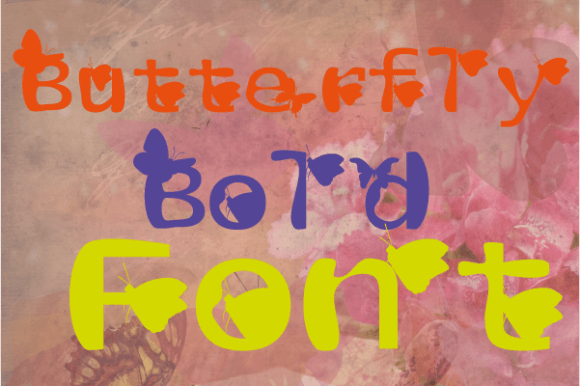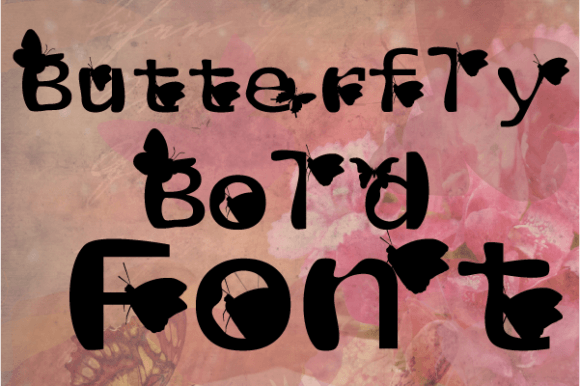
Unleash Your Creativity with Butterfly Bold Font
Have you ever stared at a blank page, feeling like your creativity is stuck in a rut? You know, that moment when you’re trying to come up with the perfect design, but nothing seems to spark your imagination. Well, we’ve got the solution for you! Introducing Butterfly Bold Font, the perfect tool to bring some fun and playfulness to your designs.
This friendly font is designed to make a statement, with its bold and cheerful letters that are sure to catch the eye. Whether you’re creating a kids’ party invitation, a social media graphic, or a fun poster, Butterfly Bold Font is the perfect choice. As a designer, you know that the right font can make all the difference in conveying your message and engaging your audience. With Butterfly Bold Font, you’ll be able to create designs that are both visually appealing and fun to look at.
Key Features of Butterfly Bold Font
- Font Family: Butterfly Bold, a sans-serif font with a bold and modern look.
- Unique Characteristic: Butterfly Bold features a distinctive, hand-crafted feel with subtle irregularities and imperfections, giving it a unique character.
Butterfly Bold Font Review
✨ First off, I love the unique personality of this font. It’s got a certain whimsical feel to it that’s hard to find in more traditional sans-serifs. The bold weight is particularly well-executed, with thick lines that add a nice level of sophistication.
✨ The font’s versatility is another major plus – it works well in both print and digital applications, from headings to body text. The characters are also well-spaced, which makes for easy reading even at smaller font sizes.
⚠️ One potential limitation is the font’s limited character set. While it’s sufficient for most Western languages, it might not be the best choice for languages that require a more extensive character set. Additionally, the font’s design can be a bit overwhelming if used in large blocks of text.
Overall, I think Butterfly Bold Font is a great choice for designers looking for a unique, eye-catching font that’s still easy to read. Just be mindful of its limitations, and you’ll be golden!
- Unique personality and design
- Well-executed bold weight
- Versatile and suitable for various applications
- Easy to read at smaller font sizes
For the best results, use the Butterfly Bold Font in conjunction with other bold and elegant fonts to create a visually appealing design.
Experiment with different font sizes and styles to create contrast and emphasis in your design.
Use the font in headings and titles to create a clear hierarchy of information and draw attention to important text.
The Butterfly Bold Font is ideal for use in: